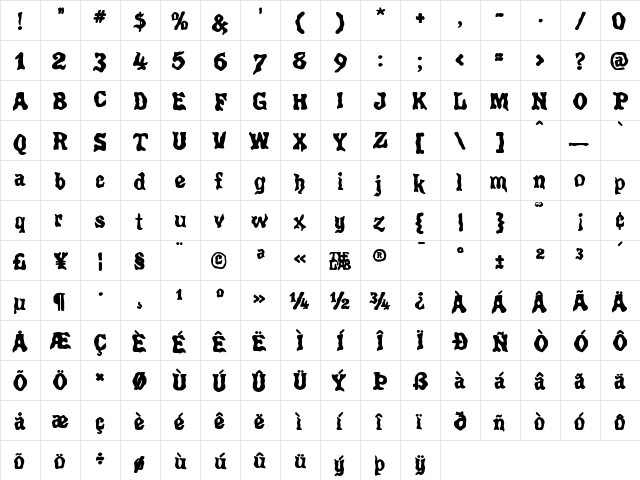
Poultrygeist Regular
Design Context for Poultrygeist Typeface
Poultrygeist is a composed and adaptable typeface that performs quietly and consistently across a wide range of design contexts.